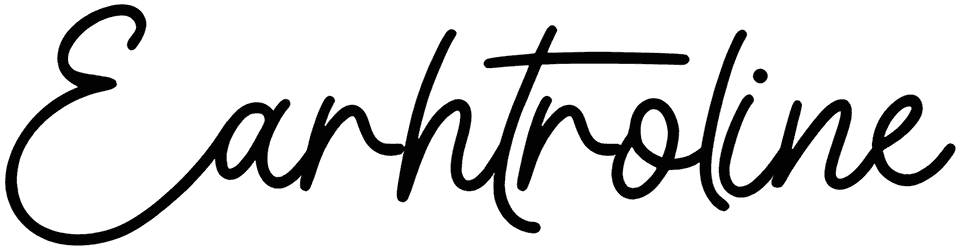
Earhtroline Font
Create a casual and modern design and make it stylish. This invitation font, with its twisty and smooth pen-lettered style, can be a perfect item for formal or informal projects. As a catchy monoline illegible script font, Earhtroline can be harmonized with various designs such as posters, movies, logos, cards, or the like, and cause a memorable vibe.